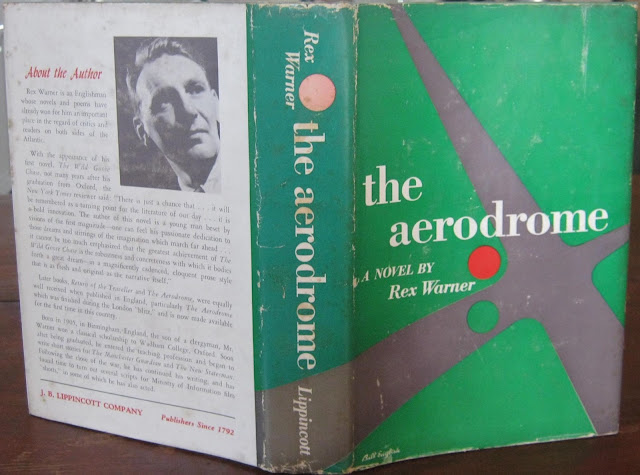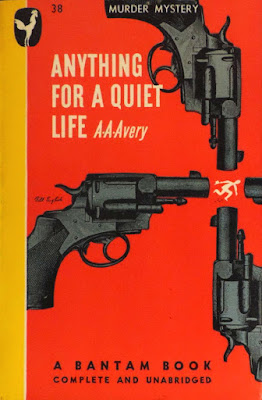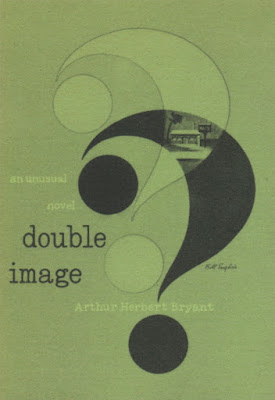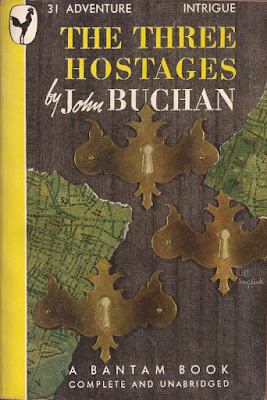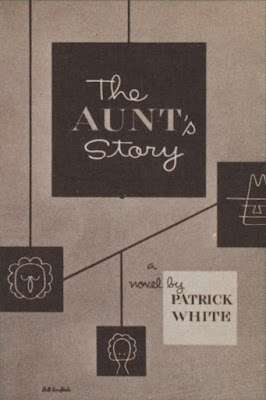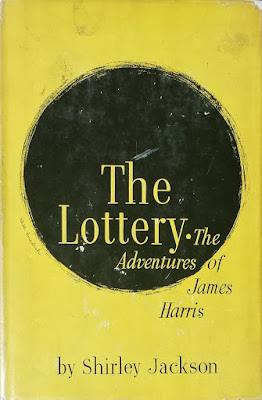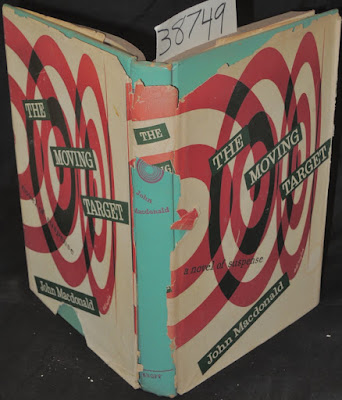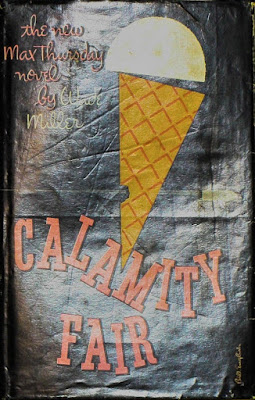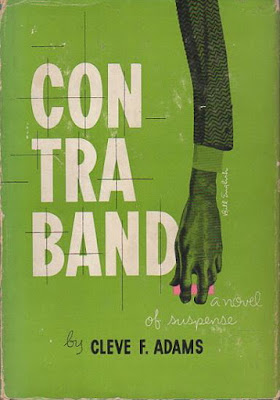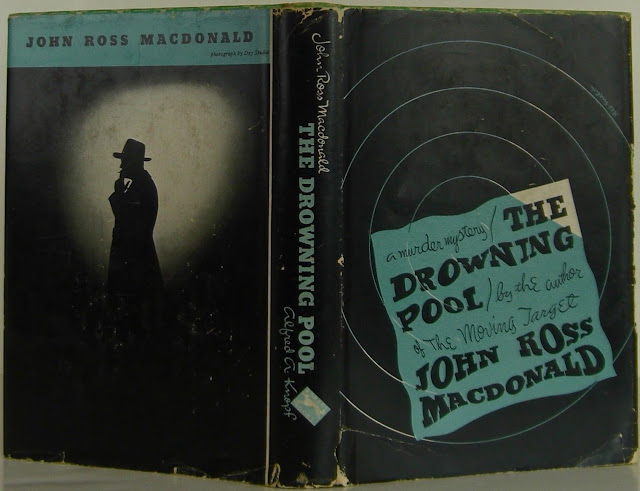
Jacket and cover designs by Bill English
Rex Warner
A. A. Avery
Double Image
Arthur Herbert Bryant
Farrar, Straus, 1946
Image from the catalog, First Annual Exhibition of Book Jackets,
sponsored by the Book Jacket Designers Guild, 1948
Forlorn Sunset
Michael Sadleir
Farrar, Straus and Company, 1946
Arthur Herbert Bryant
Farrar, Straus, 1946
Image from the catalog, First Annual Exhibition of Book Jackets,
sponsored by the Book Jacket Designers Guild, 1948
Forlorn Sunset
Michael Sadleir
Farrar, Straus and Company, 1946
Image from the catalog, First Annual Exhibition of Book Jackets,
sponsored by the Book Jacket Designers Guild, 1948
Never Let Weather Interfere
Messmore Kendall
Farrar, Straus and Company, 1946
Night Fire
sponsored by the Book Jacket Designers Guild, 1948
Never Let Weather Interfere
Messmore Kendall
Farrar, Straus and Company, 1946
Night Fire
John Buchan
January 1947
6. Bodoni types with a red band and one of gray-green. By Bill English.
(A jacket by English was reproduced in this issue.)
H. F. Heard
Vanguard Press, 1947
Anna Kavan
Doubleday and Co., 1947
What D’Ya Know for Sure, a 20th Century
Fox Literary Fellowship Novel
Len Zinberg
Doubleday and Co., 1947
Rex Stout
Viking Press, 1948
Meredith Willson
Doubleday & Company, 1948
The Aunt’s Story
Patrick White
Viking Press, 1948
Uneasy Street
Patrick White
Viking Press, 1948
Image from the catalog, Second Annual Exhibition of Book Jackets,
sponsored by the Book Jacket Designers Guild, 1949
Wade Mille
Farrar, Straus & Company, 1948
Wade Miller
Farrar, Straus, 1949
Dry Messiah: The Life of Bishop Cannon
Virginius Dabney
Alfred A. Knopf, 1949
May? 1949
…best, and still one of the simplest jackets we've seen for some time is the one Knopf have for Virginius Dabney’s “Dry Messiah: The Life of Bishop Cannon,” the famous prohibitionist. Bill English has taken the outstanding characteristics of the late and mostly unlamented Bishop and translated them into a pair of flaming eyes and a blue nose. With its white background, it’s an eye stopper, and we’ll bet it dominates any window that displays it.
Shirley Jackson
Farrar, Strauss, 1949
John Macdonald
Alfred A Knopf, 1949
Rex Stout
Viking Press, 1949
Rex Stout
Viking Press, 1949
Wade Miller
Farrar Straus, 1950
Cleve F. Adams
Alfred A. Knopf, 1950
John Ross MacDonald
Rex Stout
Viking Press, 1950
Records: 1950 Edition
David Hall
Alfred A. Knopf, 1950
Hammond Innes
Alfred A Knopf, 1951
G. V. Desani
Farrar and Straus, 1951
Art Directors Club, 1951
245 — design of complete unit —
[Contraband]
designer: Bill English
art directors: Bill English, Harry Ford
artist: Bill English
Herbert Gold
Viking Press, 1951
Rex Stout
Viking Press, 1951
Theo Durrant
Alfred A. Knopf, 1951
Robert Merle
Alfred A. Knopf, 1951
January 1952
“Some Practical Notes on the Design and Creation of Book Jackets”, by Morris Colman, illustrated by work of Joseph Low, Alvin Lustig, Ludwig Bemelmans, Susan Foster, Bill English, Thomas Ruzicka, George W. Thompson, Ray Pederson, Philip Grushkin, Al Hirschfeld, George Maas, Edward Collins, Miriam Woods
Art Directors Club, 1952
268 Photographers: Bill English
Mariamne {English’s wife]
Art Director: R. A. Freiman
Publisher: Random House, Inc.
Publication: “A Length of Rope”
Angus Wilson
Viking Press, 1952
Rex Stout
Viking Press, 1952
Rex Stout
Viking Press, 1952
Hubert Creekmore
Random House, 1953
Oakley Hall
Viking Press, 1953
Rex Stout
Viking Press, 1953
A Man and Two Gods
Jean Morris
Viking Press, 1953
John Ross Macdonald
On the Road
Jack Kerouac
Viking Press, 1953
The Overloaded Ark
Gerald M. Durrell
Viking Press, 1953
The Stones of the House
Theodore Morrison
Viking Press, 1953
The Time of Indifference
Alberto Moravia
Farrar, Straus and Young, 1953
Jack Waer
Viking Press, 1954
1954
Hastings House develops ad art book program
Art director Harry Ford is using top professional designers for the covers. The first ten books will be done by Alvin Lustig, Leo Lionni, Joseph Low, George Salter, Bill English, Seymour Robbins, McKnight Kauffer, Antonio Frasconi and Harry...
Random House, 1954
(see AIGA Design Archives)
Rex Stout
Viking Press, 1954
Carnival by the Sea
Sigrid de Lima
Scribners, 1954
William Gibson
Alfred A. Knopf, 1954
George Harmon Coxe
Alfred A. Knopf, 1954
The Huge Season